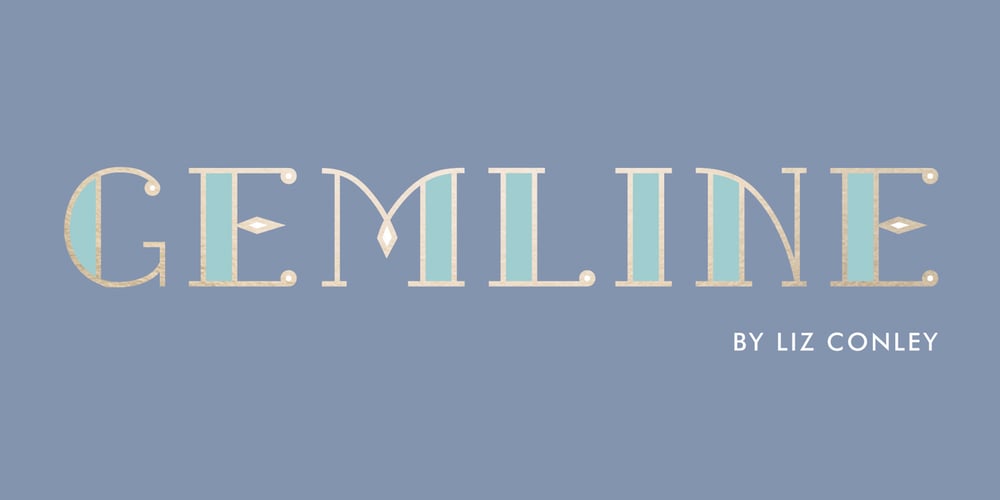
Gemline Font Family was designed by Liz Conley and published by Liz Conley. Gemline contains 4 styles and family package options. Gemline is an Art Deco inspired display font featuring Inline and Black weights with 2 fill options for adding colorful effects quickly and easily.